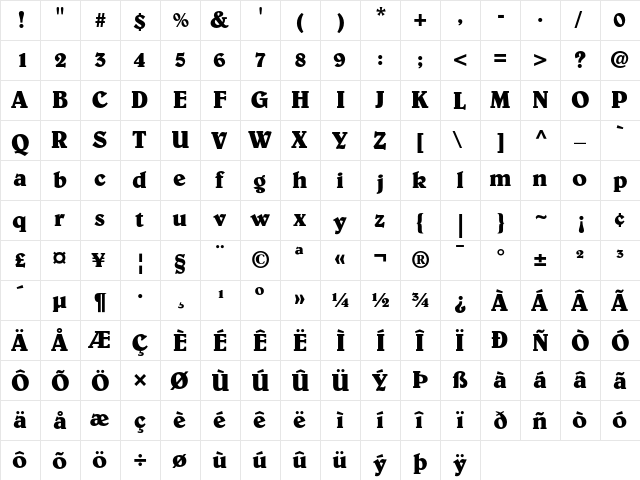
Belwe Bold
Design Context for Belwe Typeface
Belwe offers clean, dependable letterforms without strong stylistic allegiance, making it a practical choice for designers who need flexibility. The heavy weight commands attention and anchors typographic hierarchies.
Pro Tip: Use Belwe in both headline and body roles to test its range before committing to a single application.